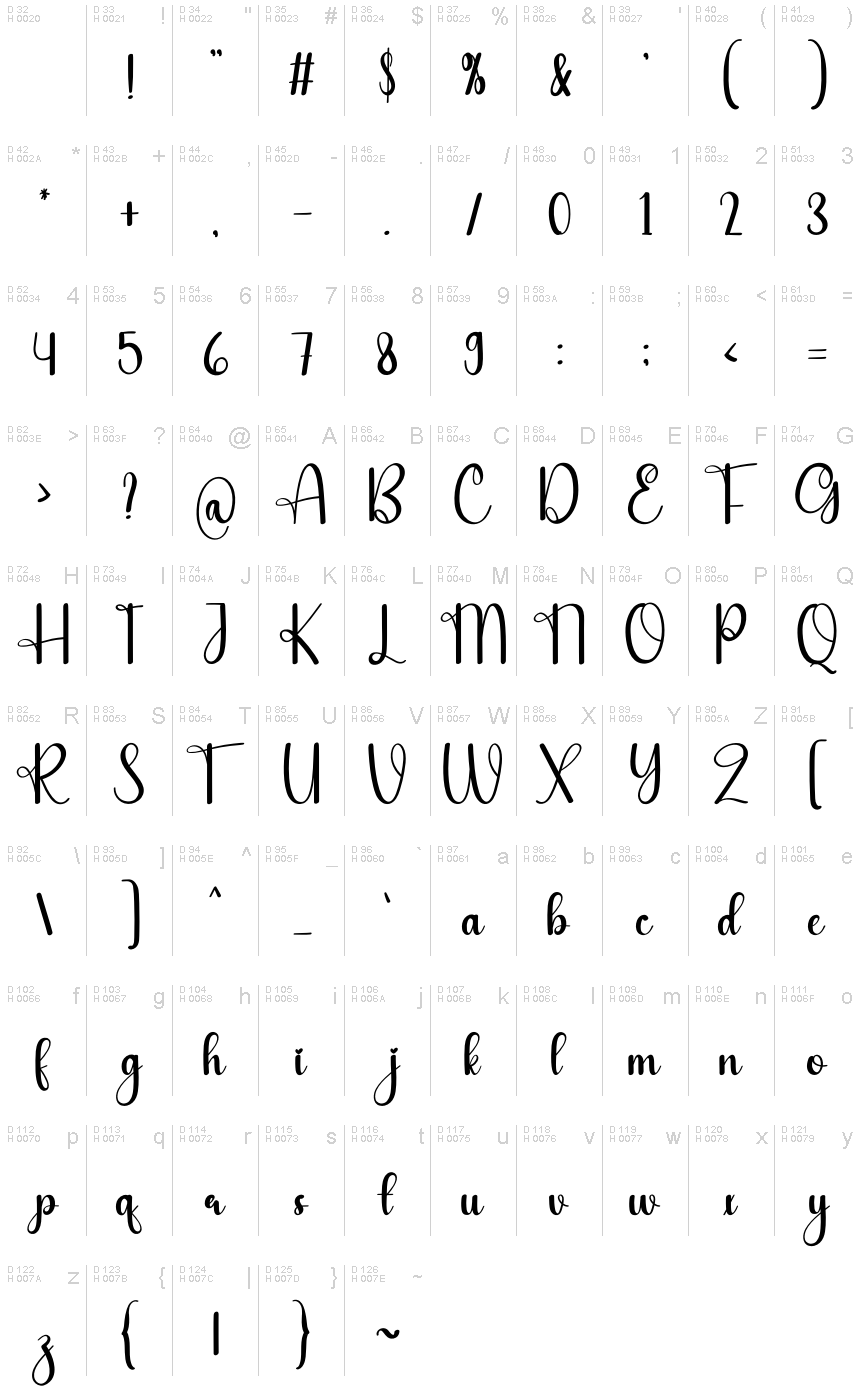
Olive Oil
Olive Oil, designed by Scratchones, exudes a warm, personal touch with its handwritten style that captures the charm of an artist's fluid penmanship. Its letters flow with an organic grace, suggesting a casual elegance that is both inviting and distinctive. The font dances between bold strokes and delicate curves, creating a visual rhythm that is as appetizing to the eye as its namesake is to the palate.
This typeface lends itself beautifully to contexts where a touch of humanity and authenticity is desired. It's perfectly suited for branding materials for artisanal products, invitations for intimate gatherings, or any creative project that benefits from a handcrafted feel. Olive Oil's elegant yet unpretentious character ensures it stands out in applications where personality and approachability are key.